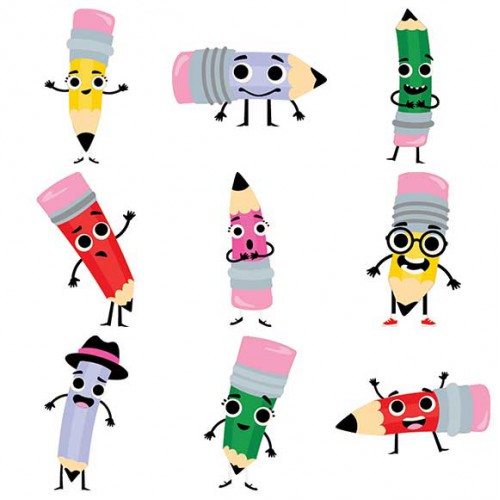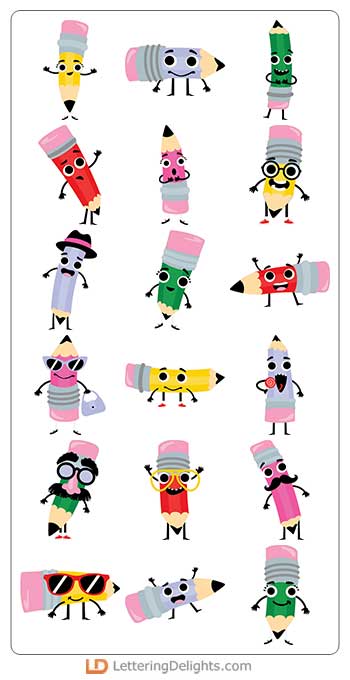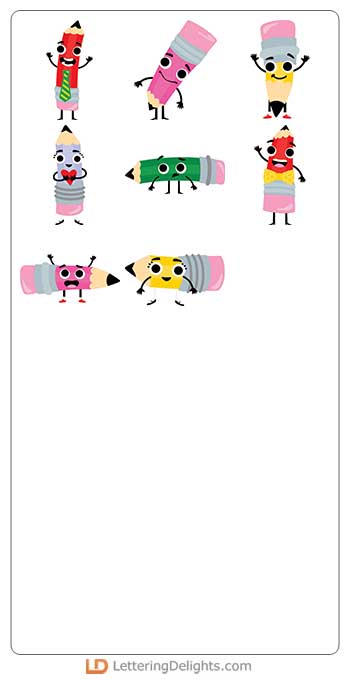
Sketched - CS
This fun cuttable graphic set features 26 pencil characters perfect for cards, crafts, gifts, classrooms, teachers, planner stickers, scrap book pages and more!